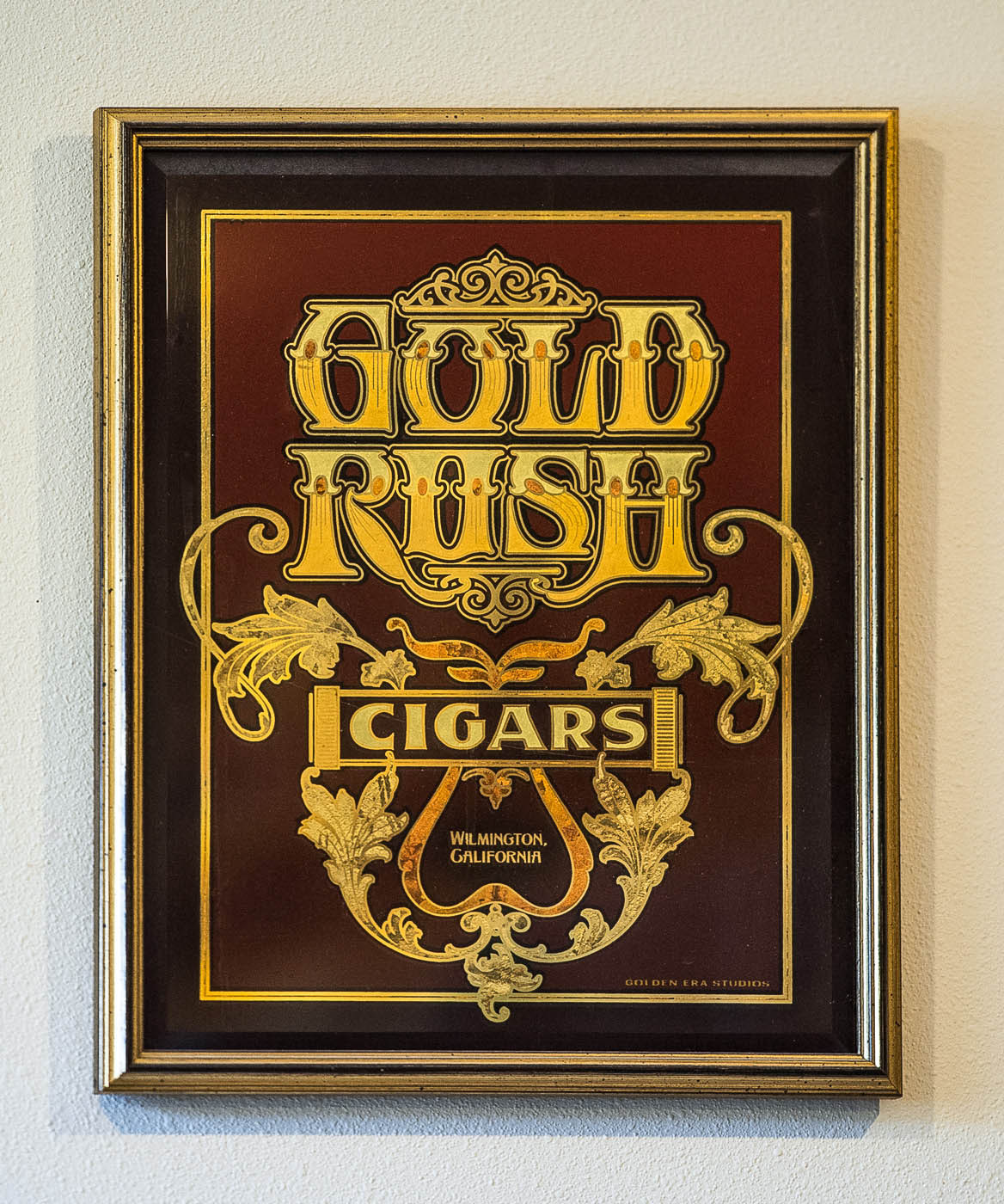
I made two or three of these panels and sent one to one of the Conclaves. One of them hangs on my office wall. Today, I was cleaning the sensors on my camera and did a few test shots. The glass piece made a good subject. It was terribly skewed—a result of me snapping the shot from my office chair and not even trying to get square with the piece.
Oh yes, the bright lines in the glass piece were Angel Gilded, then the centers were filled with a variety of Japanese leaf. I don't remember making an extra screen for the outlines. I believe they were hand painted.
Gold Rush Cigars